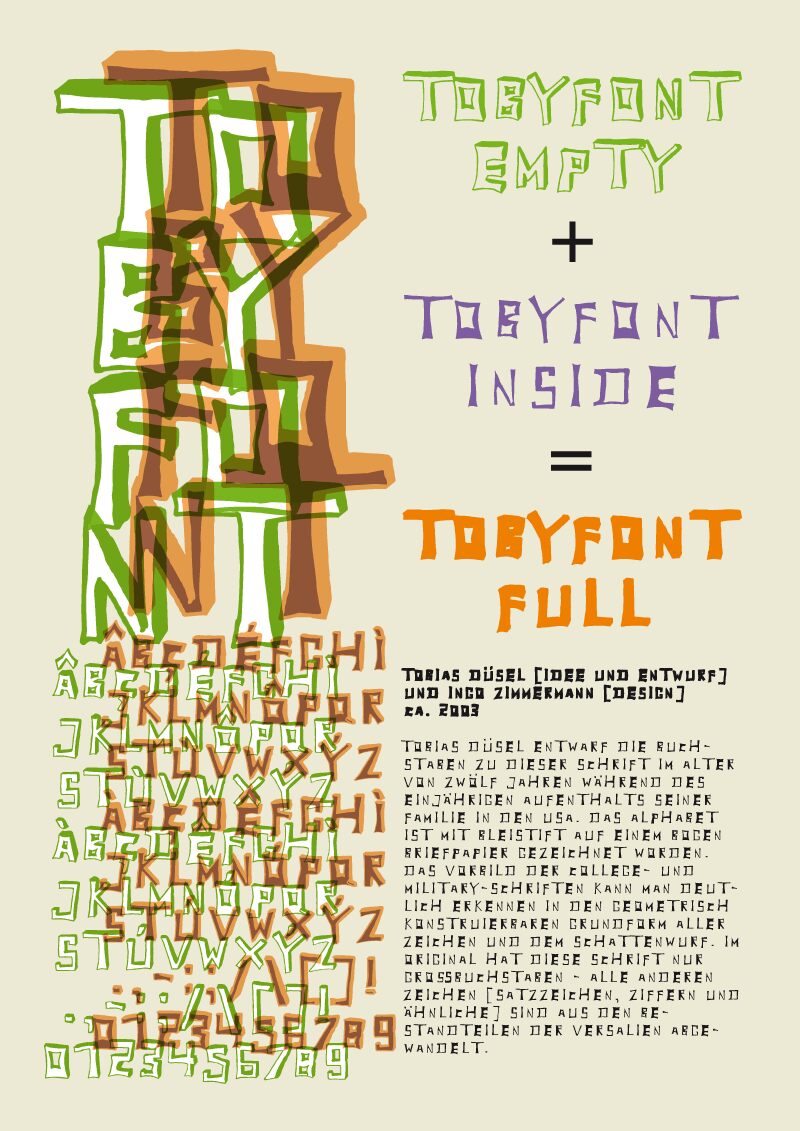
TobyFont Insidereduced, designed by Tobias Düsel and Ingo Zimmermann of ingoFonts Augsburg, is a free decorative display font with jagged, hand-cut capitals. The tall, uneven letters shift between broad slabs and pinched strokes, giving the alphabet an unruly silhouette. Small angular cutouts puncture several forms.
Designers working in underground music, alternative fashion, or horror entertainment will find its rough theatrical edge especially useful. It suits concert posters and album packaging where lettering can behave like a carved emblem rather than neutral type. The same warped shapes can lend a handmade menace to game titles and Halloween event graphics.
Twelve-year-old Tobias Dsel designed the characters of this font in 2002 during his family’s furlough in the United States. He drew the alphabet freehand in pencil on stationery without using a ruler.
The font originally consisted only of uppercase letters. All other characters, including punctuation marks and numerals, were created from components of the capital letters.
In addition to the original outline-shadow version, TobyFont Empty, two variations are available:
- TobyFont Inside contains the interior fill.
- TobyFont Full combines Empty and Inside.
All three versions have the same body size and can be overlaid congruently to create two- or three-color lettering.